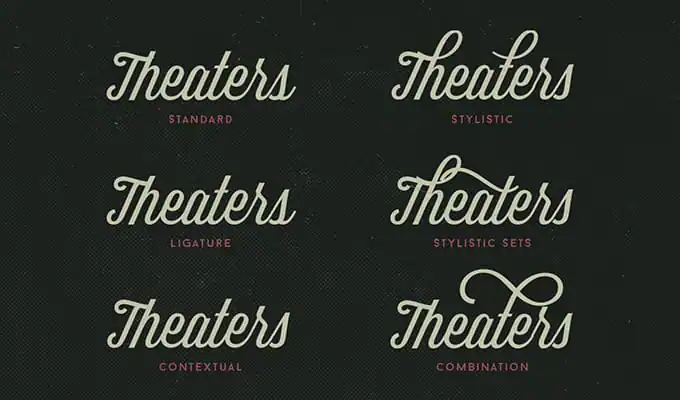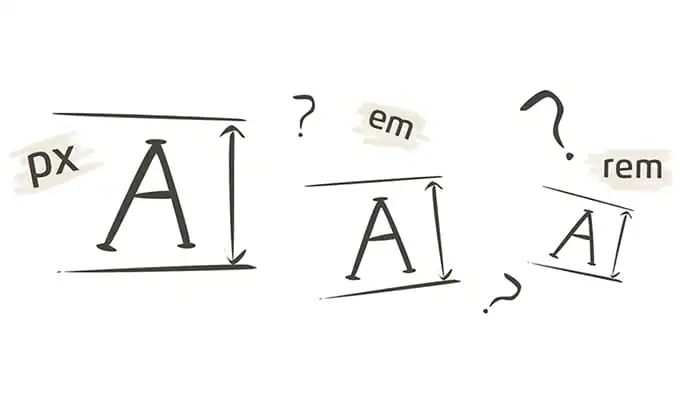
Designers talk in fancy technical terms all the time, but how often do we get it right? Well, that’s a good question, and with that in mind, we came up with 15 design terms that we always seem to screw up, then put them in one convenient place – right here!
1. Font vs. Typeface
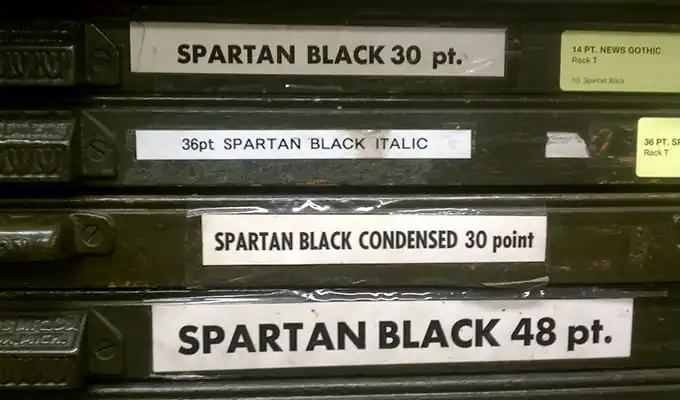
Entire articles could be done about this little tidbit, and in fact, they have. So what is the difference between a font and a typeface?
Alrighty, let’s take it back. When the printing press was new, you had to physically lay out each character one at a time until you had what you needed printed. These were done with metal blocks that had a relief of the character on its face (as in the type face), and then after the ink was applied (usually by a roller), the paper was stamped onto it, creating the text. Each block was unique, and varied based on the style, size and weight of the character at hand.
The word font also goes back to the printing press, but instead of referring to each character piece, it was for a group of blocks within certain parameters. For example, Courier 12 would be a font, but Courier 8 would be a different font.
So what’s the difference? Today, not so much. When computers came into play and people like Steve Jobs decided that they wanted pretty characters on their displays, they used font to describe the different styles of text that you wanted to use on the screen. This is technically correct, as they are blocks of text within a certain style, but font now refers more to the way the text looks, and not the way it was actually assembled back in the good ol’ days when print was king.
2. Lettering vs. Calligraphy
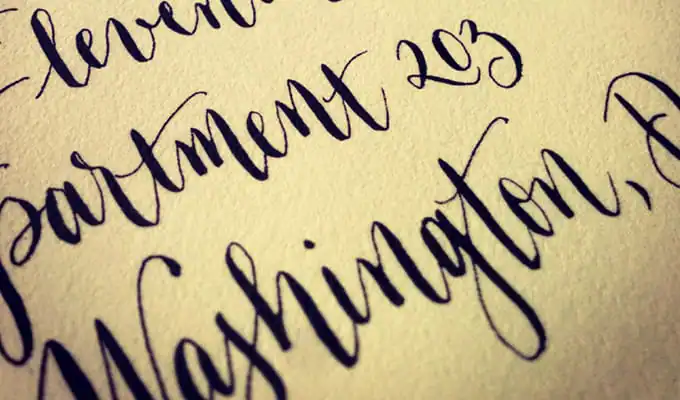
In its simplest terms, calligraphy is about the penmanship, and lettering is about draftsmanship. But that’s probably oversimplifying things a bit, so let’s dig deeper.
Think about a comic book. In both the printed and digital mediums, a letterer comes in and lays down all of the text for the book, using either a pen and paper, or Adobe Illustrator. The letterer is using the tools at their disposal to fit the specified amount of text within certain parameters, and is doing more drawing of the letters than writing them. When it comes to calligraphy, you’re writing the letters yourself; your concern isn’t drawing the letters within certain guidelines, but instead you’re writing them in place. You can’t do calligraphy with a computer, you can only emulate it.
3. Leading vs. Tracking vs. Kerning
We actually covered this one in 2014
, but here’s a refresher.
Leading (pronounced ˈlediNG, rhymes with “bedding”) deals with the vertical space set between each line. The tighter the leading, the closer that sentences are together, and vice versa. On many letters, you have a descender – the lowercase “Q,” for example – or an ascender – lowercase “B” – and between the two is the baseline, where the bottom of the main part of the letter is positioned. The leading is measured based off those factors.
Tracking is very similar to kerning, but not quite the same. While kerning deals with individual letter spacing, tracking is the spacing for the entire word. Meaning, if you raise of lower the tracking on a word, it will either spread out or tighten up the overall width.
Kerning is the spacing between individual letters. In some cases, you want to tighten up the kerning between two letters so it looks more visually pleasing, and on other times you want to spread it out for legibility. So where tracking deals with the entire word, kerning is the letters that make up the word.
4. Vector vs. Raster
This is a good one, because some people get it, and others just … don’t.
Think about an Apple keynote – any of them, frankly. They’re always talking about the pixel counts of their screens, and how many pixels they can squeeze into a space. These pixels make up images on the display, particularly photographs and the like, and are referred to as “raster” images. Any jpeg, tiff, bmp, png or gif that you see is a raster file, and Photoshop users primarily deal with raster graphics.
The problem with a raster image is that when it’s enlarged, it becomes super pixelated, losing focus in the process. This is because the computer is trying to figure out how all of the pixels need to go together, and some of it is educated guesswork. The solution? Vector graphics.
A vector graphic isn’t based on pixels, but instead is based on math. Let’s take a heart as an example. If you drew out a heart in Photoshop, it would have hundreds – maybe more – of pixels sending data to the display. If you did the same thing in Illustrator, it would be based on lines and curves. And instead, we would talk about the points where lines connect, like at the top and bottom centers of the heart shape. Your computer is doing the math on the fly to get all the info.
You work with vector graphics primarily in fonts and logos, because both of them need to look crisp no matter what size they are. But to sum it up: raster is for photos, vectors are for logos.